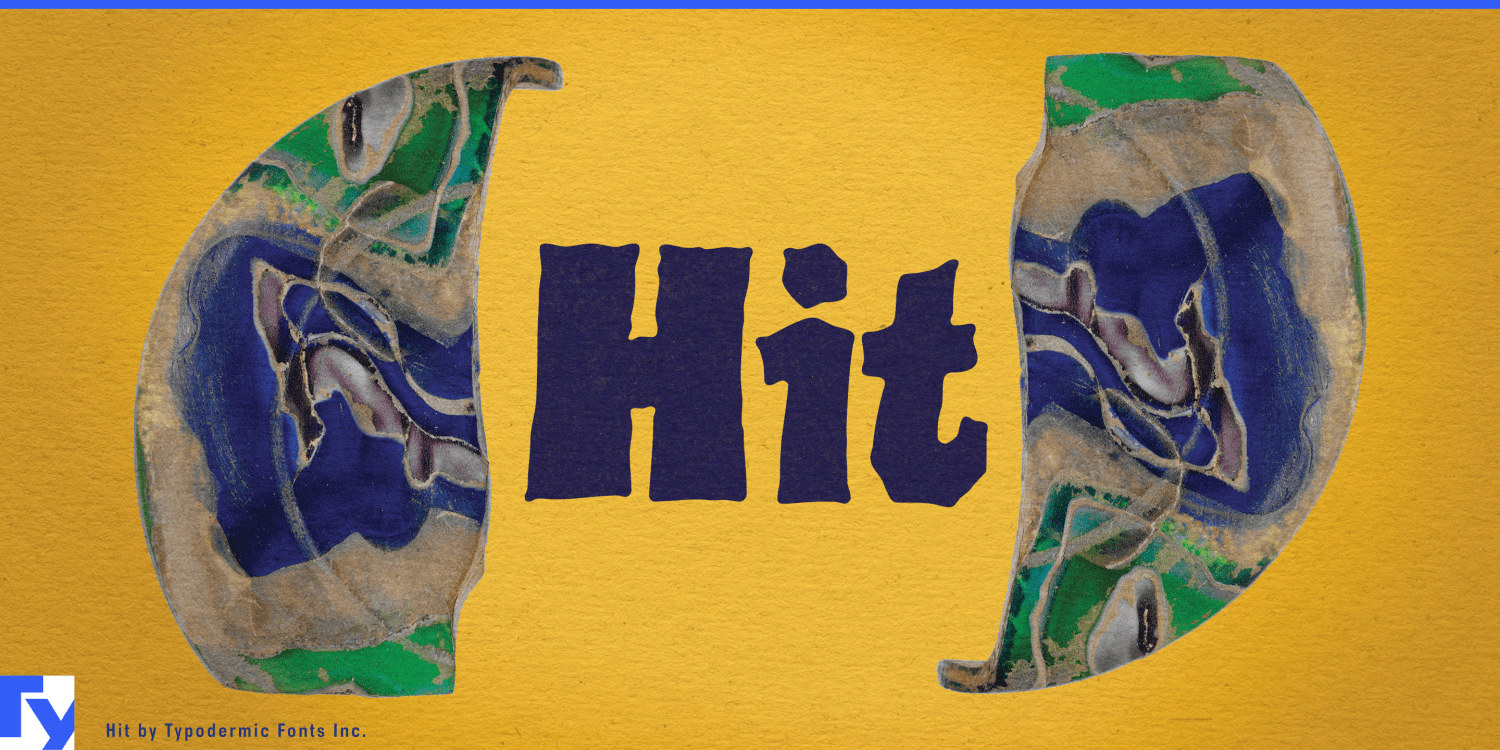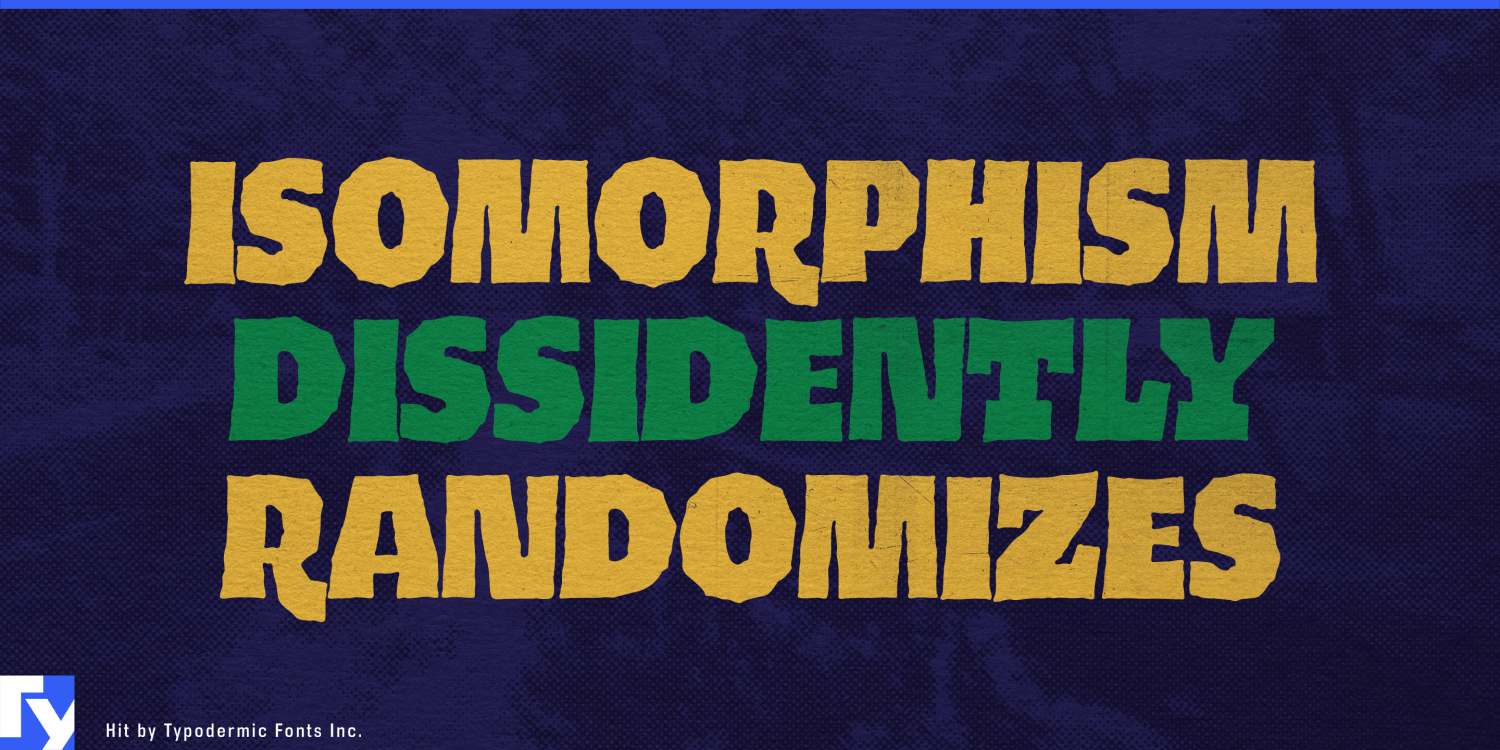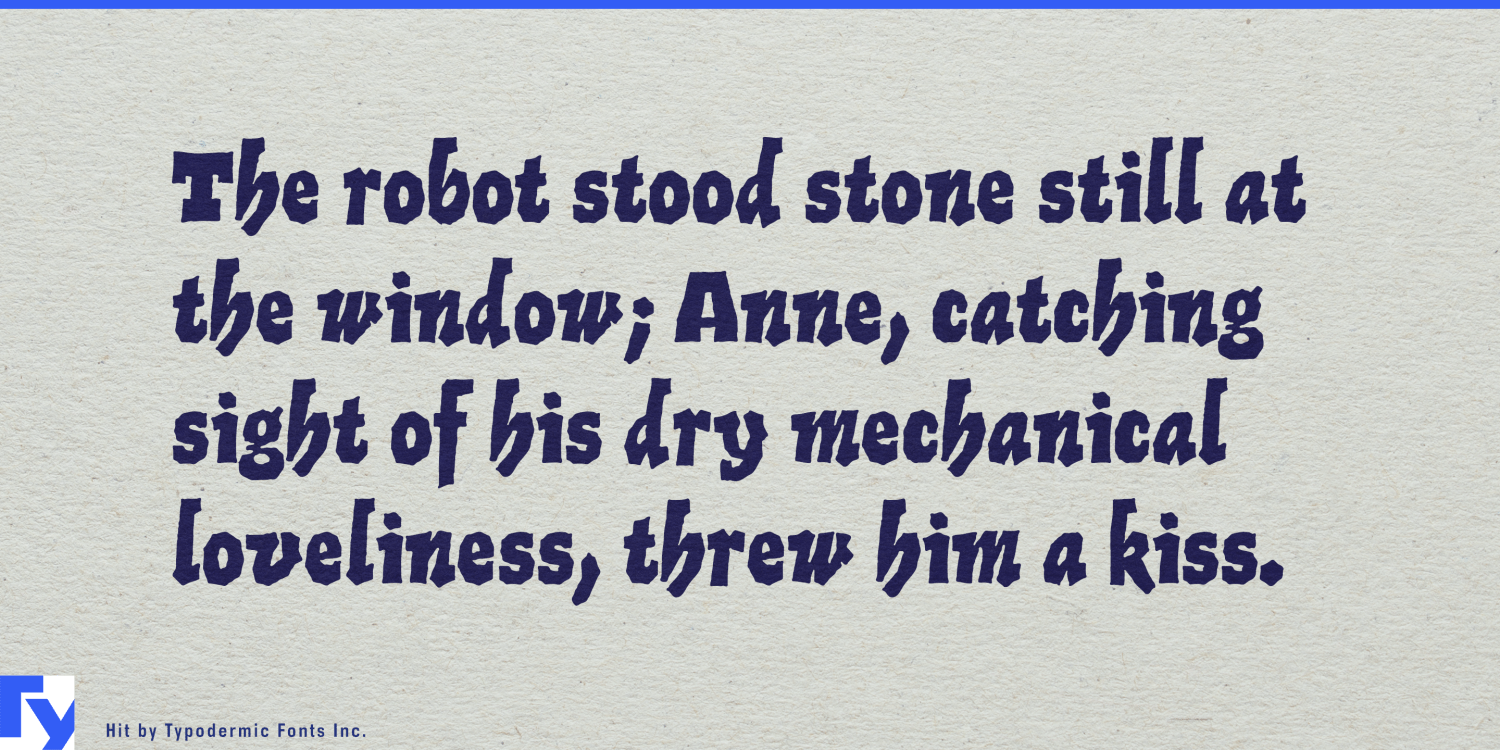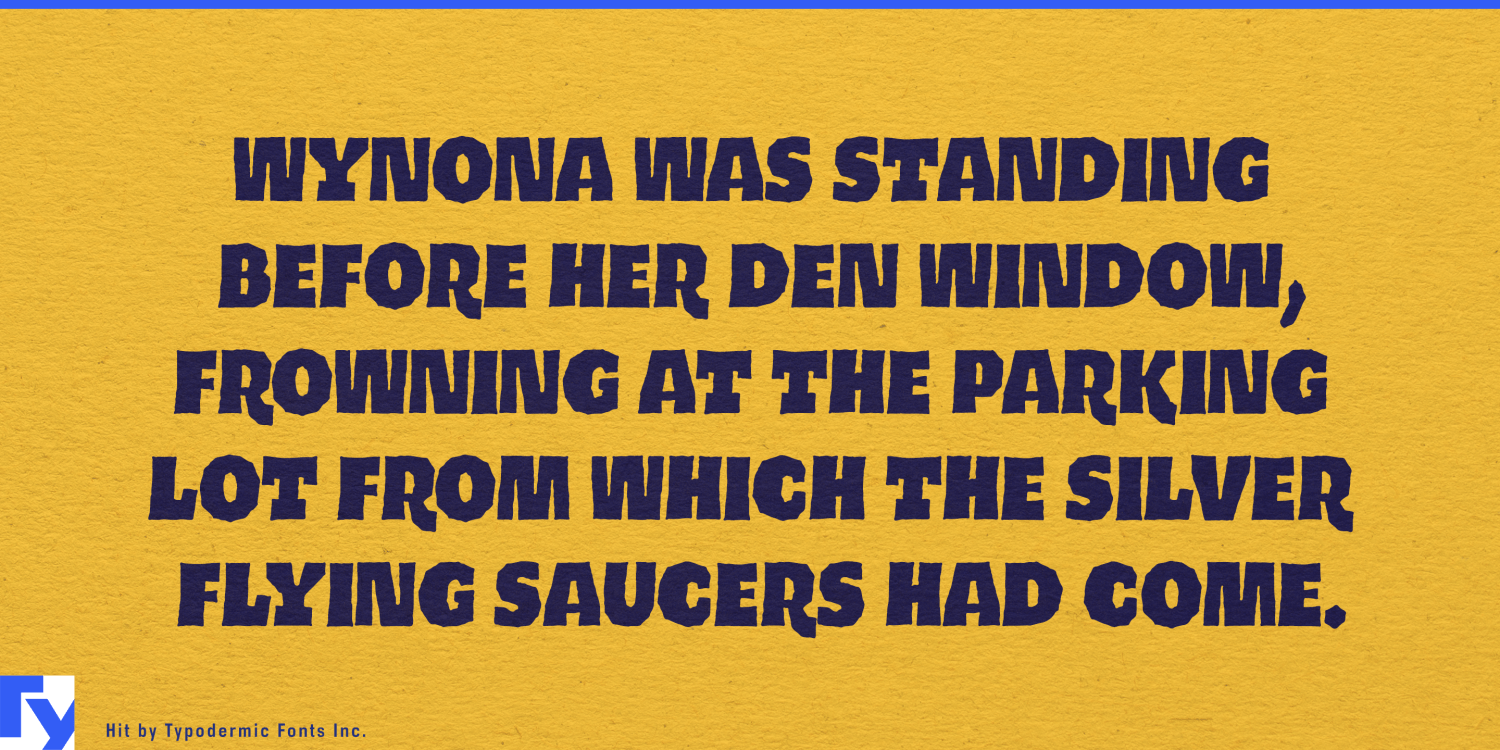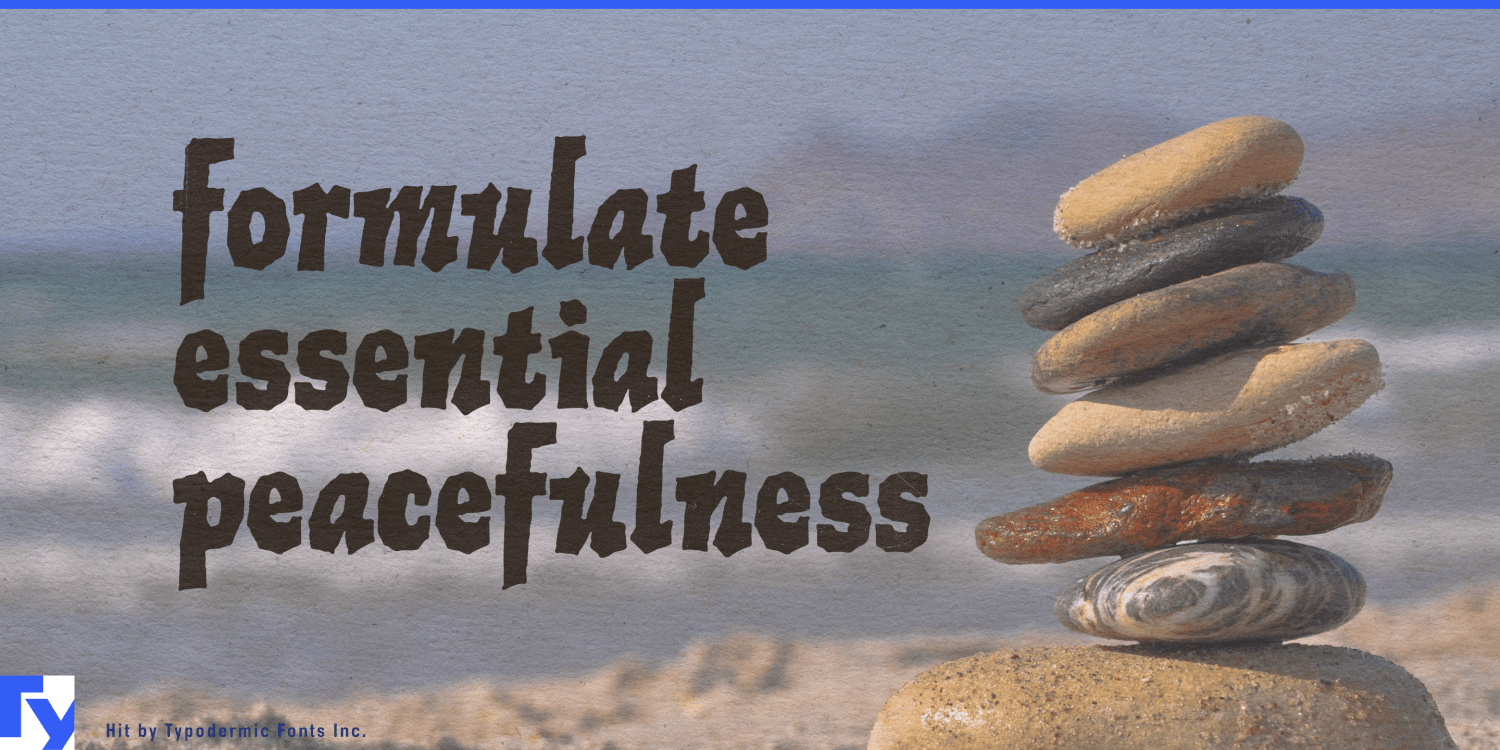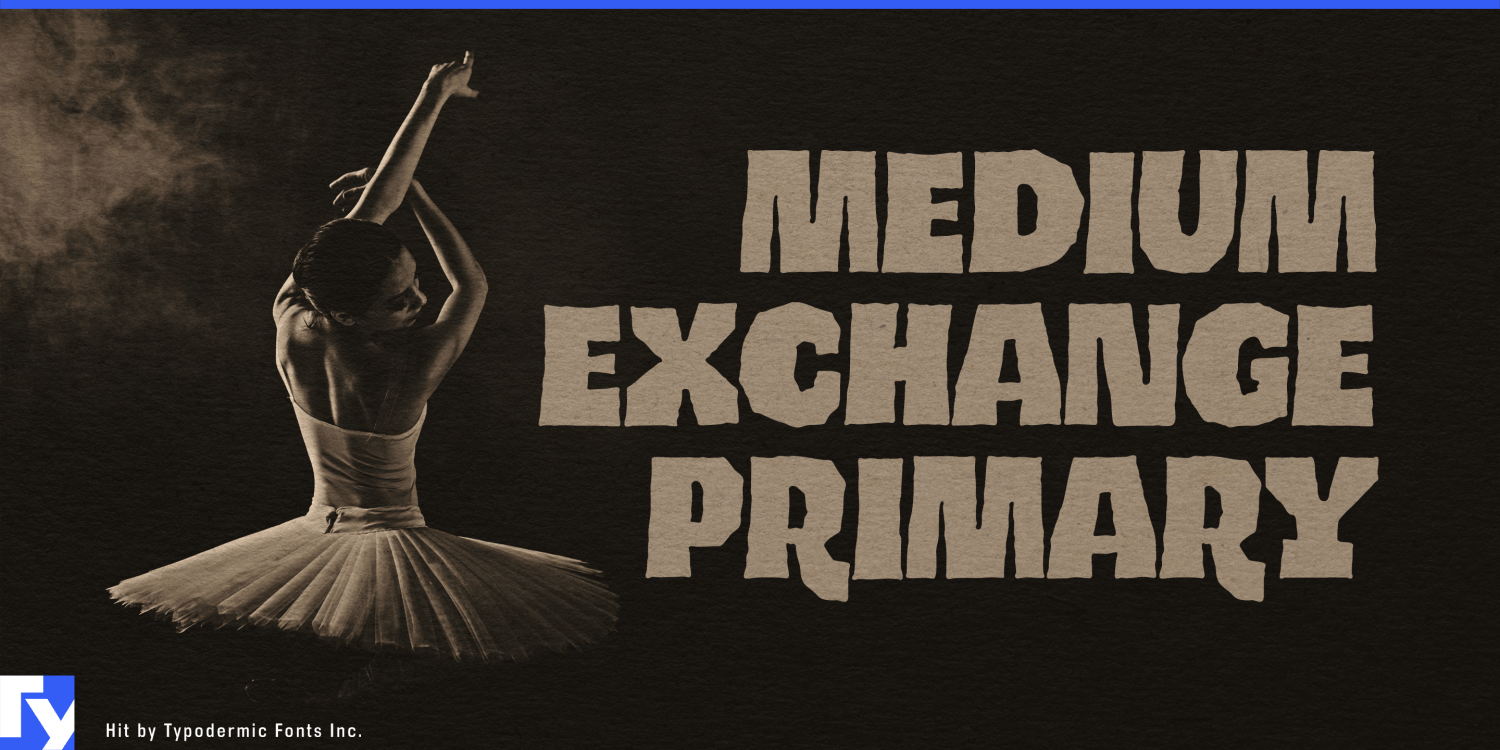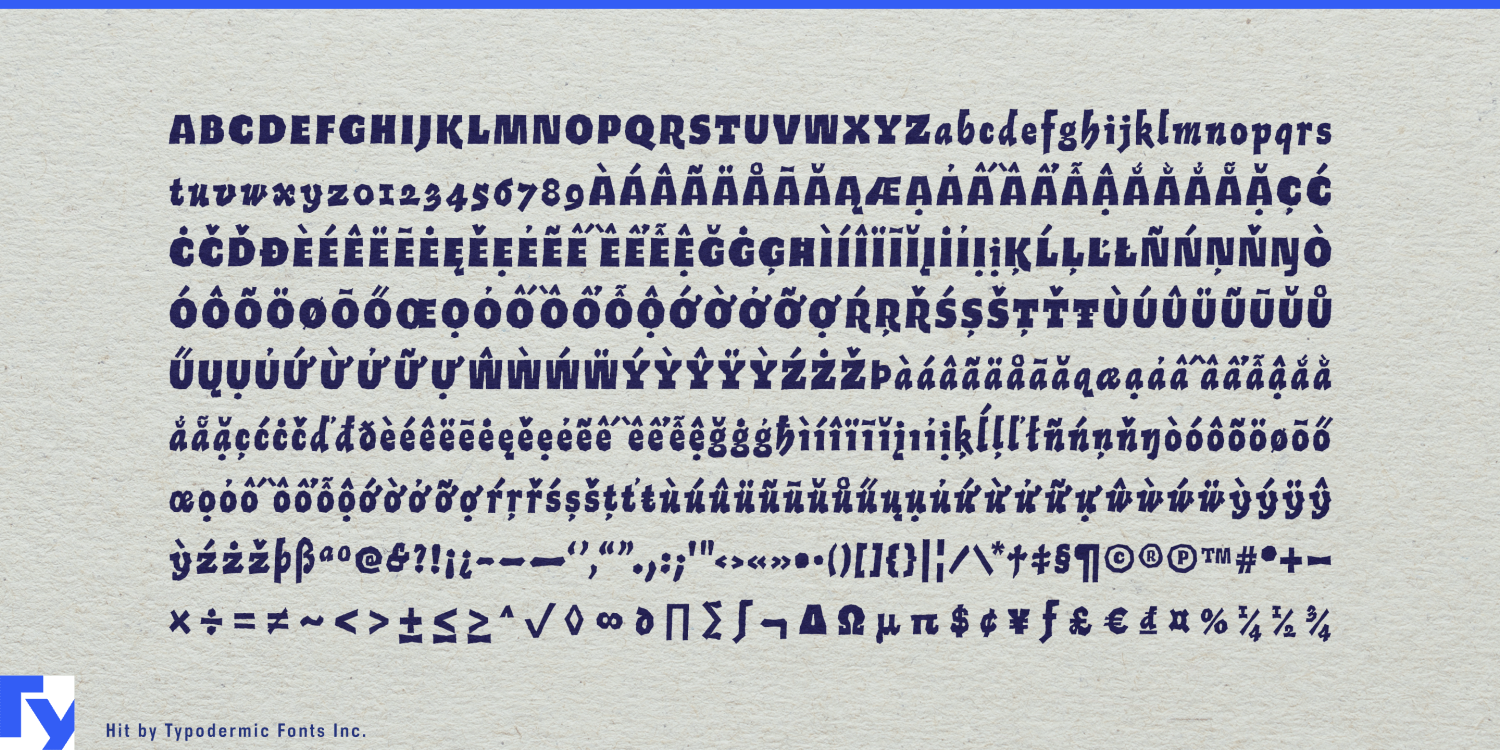
Hit
Font Family by Typodermic
A perfectly polished display face can feel out of place when the making is part of the attraction. Dough gets shaped in front of the customer, dumplings are folded behind the counter, a food hall changes personality throughout the day, or an animated world is visibly built from paper, clay, and physical objects. Hit brings a similarly constructed quality to typography: irregular, chunky forms that look made rather than engineered into flawless uniformity.
Its uneven silhouettes come from the letterforms themselves rather than scratches or artificial wear. In all caps, Hit becomes a dense, slightly crooked block of lettering with enough mass for signs, titles, and large category names. Mixed case reveals a more animated side, with narrow, slanted lowercase forms creating an eccentric rhythm. That gives the single style two useful registers.
Contemporary food halls and mixed-use dining spaces are a natural setting. These venues generate vendor names, counter headings, temporary concepts, pop-up graphics, event titles, wall messages, merchandise, and seasonal campaigns. Hit can create large architectural words such as BAKERY, NOODLES, PICKLES, or DINNER while mixed-case settings loosen the tone for dishes, promotions, and smaller attractions within the space.
Fermentation-led bakeries and hybrid food businesses make especially good use of its physical character. Sourdough bakeries, koji bakeries, pickle and preserve counters, fermentation cafés, and businesses that shift from bread and sandwiches during the day to dinner or events at night can use Hit for daily specials, sandwich boards, paper bags, menu headings, window graphics, takeaway stickers, and evening-event titles without resorting to fake letterpress nostalgia.
Process-forward casual food extends the same idea into sourdough pizza, focaccia sandwiches, hand-pulled noodles, dumpling counters, rotisserie concepts, and other establishments where preparation is visible. Short category words and dish names become substantial graphic elements across menu boards, greaseproof paper, takeaway cartons, staff shirts, delivery packaging, and storefront campaigns.
The same quality works in tactile entertainment. Stop-motion productions, clay animation, cut-paper campaigns, collage-heavy title sequences, practical-set advertising, and handmade game worlds can use Hit for main titles, chapter cards, character names, location headings, packaging, and promotional graphics that belong naturally inside a visibly constructed world.
Hit is most useful where the work wants to show its hands. Food halls, bakeries, fermentation counters, process-forward restaurants, stop-motion, and handmade entertainment all benefit from display lettering that feels constructed and imperfect without looking artificially damaged or nostalgically distressed.